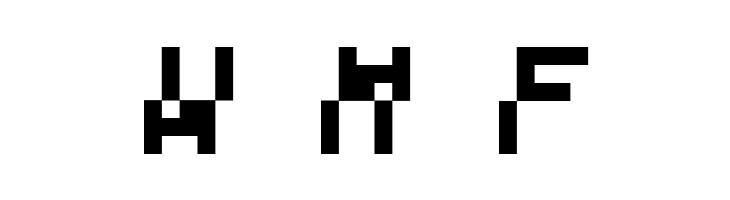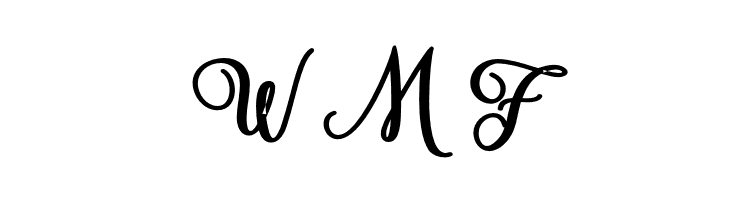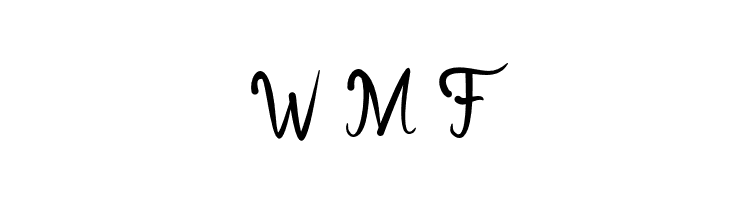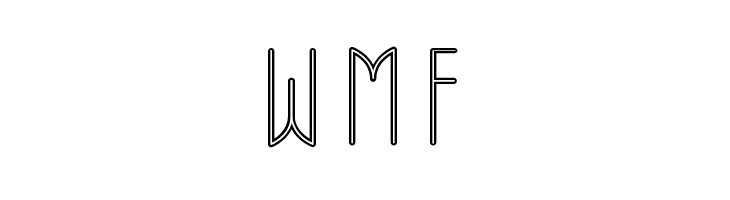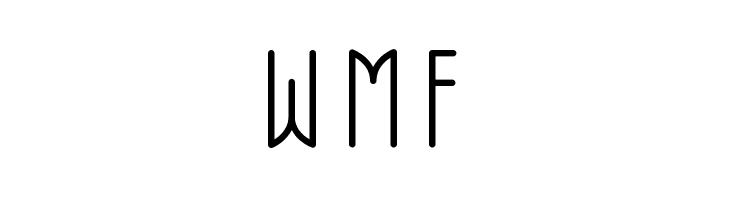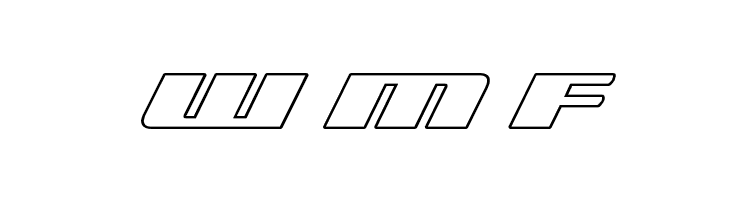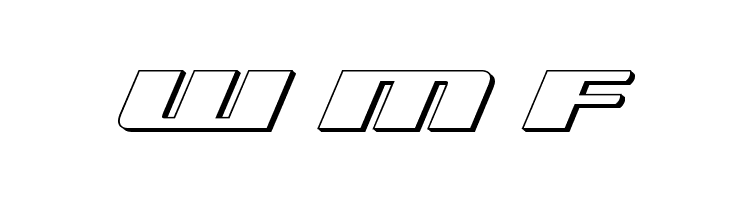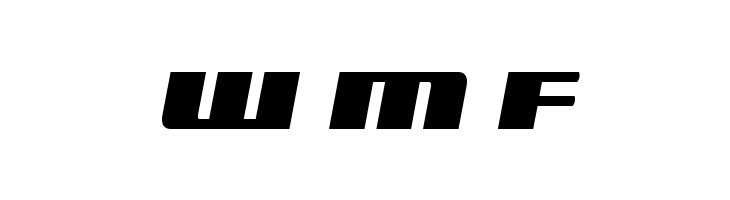
A pixelated, blocky font inspired by retro digital displays.
A bold, stencil-style font with high contrast and geometric shapes.
A lively and expressive brush script font with dynamic strokes and a hand-lettered feel.
A modern, outlined font with tall, narrow characters and consistent line thickness.
A tall, narrow font with rounded edges and a modern, cohesive style.
A bold, outlined font with expanded width and a modern, geometric style.
A bold, 3D, expanded font with geometric and angular design.
A bold, semi-italic font with a dynamic and modern style.
A bold, outlined, extra-condensed font with a modern geometric style.